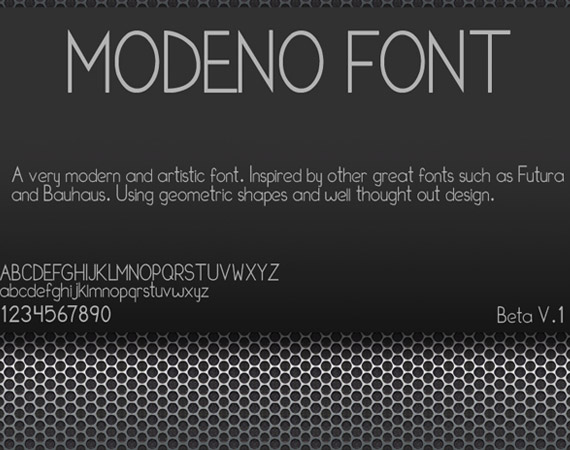
Best Modern Fonts For Websites. This perfectly geometric and rounded font designed by milena brandau is gorgeous and perfect for any sort of modern project. And of course, as a brand, you will also need a font that comes with a commercial license.
These fonts are best used for the web since they are readable in small sizes. Best modern fonts of 2020: Popular modern fonts like bodoni, helvetica, avenir, and futura all represent a different take on a modern typeface throughout the decades.
Elegant And Modern Fonts Are Great For Making Websites Stand Out And Adding A Higher Sense Of Style And Flare.
Junicode bold condensed in free fonts. Arial is a classic sans serif font, suitable for both paragraphs and headlines. If you’re looking for a handwritten font that can be used for both headers and paragraph text, this font family does it all.
Top 10 Fonts For Modern Websites Web Development / Leave A Comment There Was A Time When Most Of The Web Designers Used To Rely On Web Safe Font’s Like Times Roman, Arial, Helvetica And Verdana.
It’s long been a staple in web design. It’s also one of the oldest, having been around since 1957. Uni sans is one of the most modern new fonts that combine classic font styles with modern geometric strokes.
Popular Modern Fonts Like Bodoni, Helvetica, Avenir, And Futura All Represent A Different Take On A Modern Typeface Throughout The Decades.
Because of that, brush script mt translates into a beautiful yet readable display font for your site. It features a calligraphy style based on handwriting techniques. And of course, as a brand, you will also need a font that comes with a commercial license.
There Are Six Adorable Script Fonts In This Font Family, Including A Fine, Regular, And Hollow Typeface.
Lato is a good font for websites because it’s so readable, and comes with plenty of different styles. Best modern fonts of 2020: Harmond free display typeface in free fonts.
Mathison Is A Modern Serif Font You Can Use To Design Stylish Headers And Titles For Websites, Posters, Banners, And Even Logos.
To this day, the digitized tnr is one of the most recognizable, popular and legible fonts on the web. Merriweather is extremely popular for online use, because it was designed to be read on screens. The font is free to use with your personal and commercial projects.